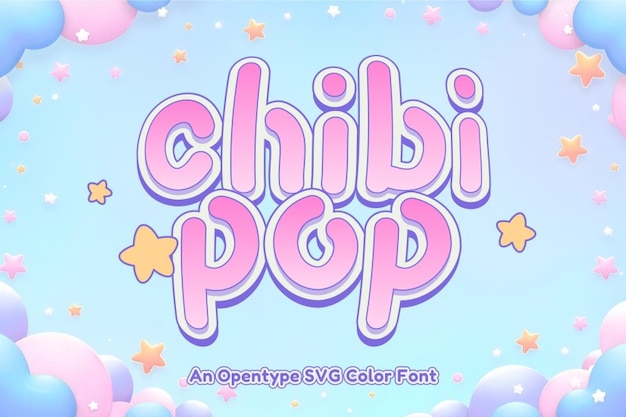
"Chibipop" is an adorable, rounded font bursting with cute, cartoon-inspired charm. Its bubbly, playful letters exude a girly and cheerful vibe, perfect for fun designs, kids’ projects, or whimsical branding. With its soft curves and lively personality, "Chibipop" adds a touch of joy and sweetness to any creation, making it irresistibly delightful.